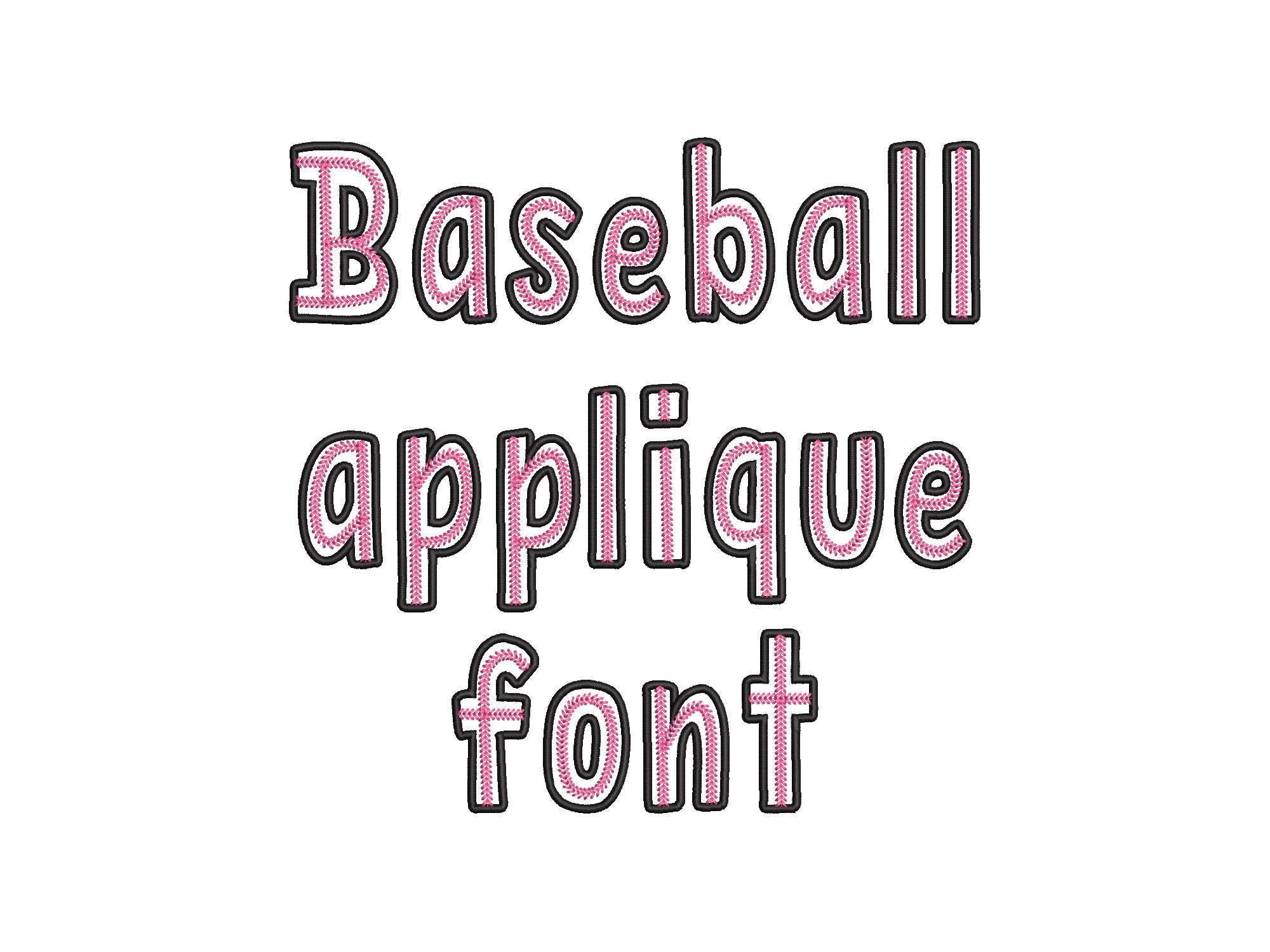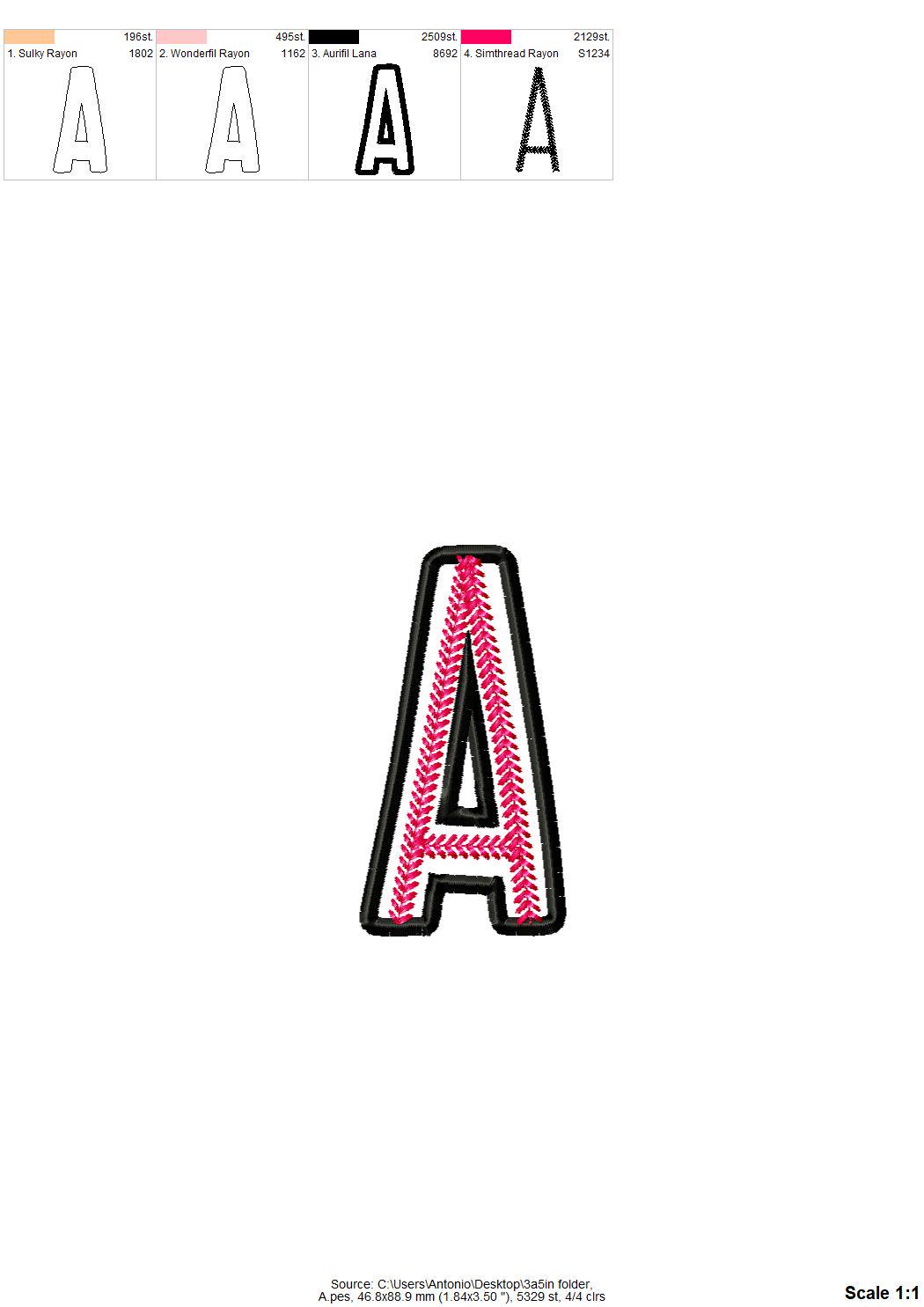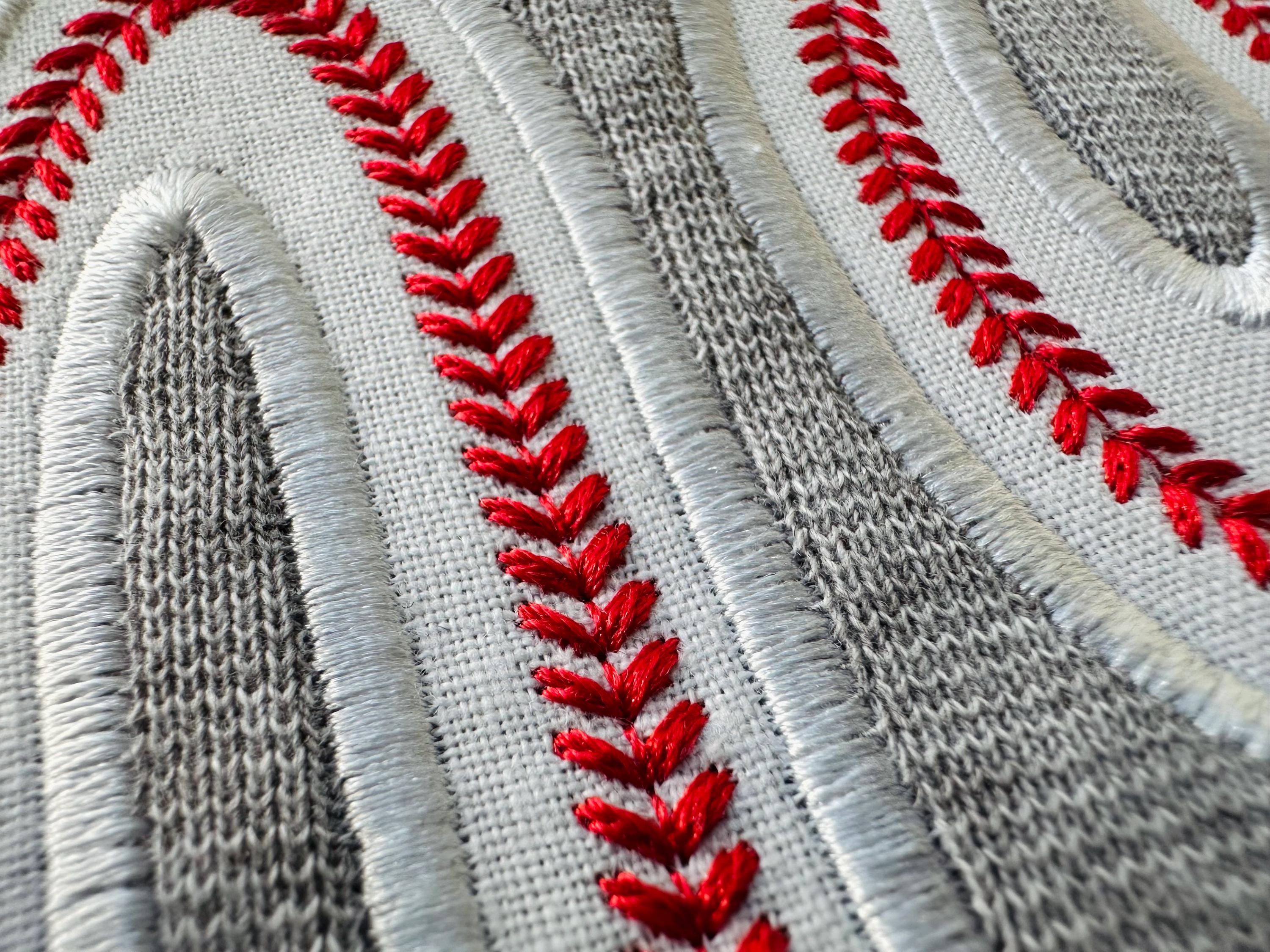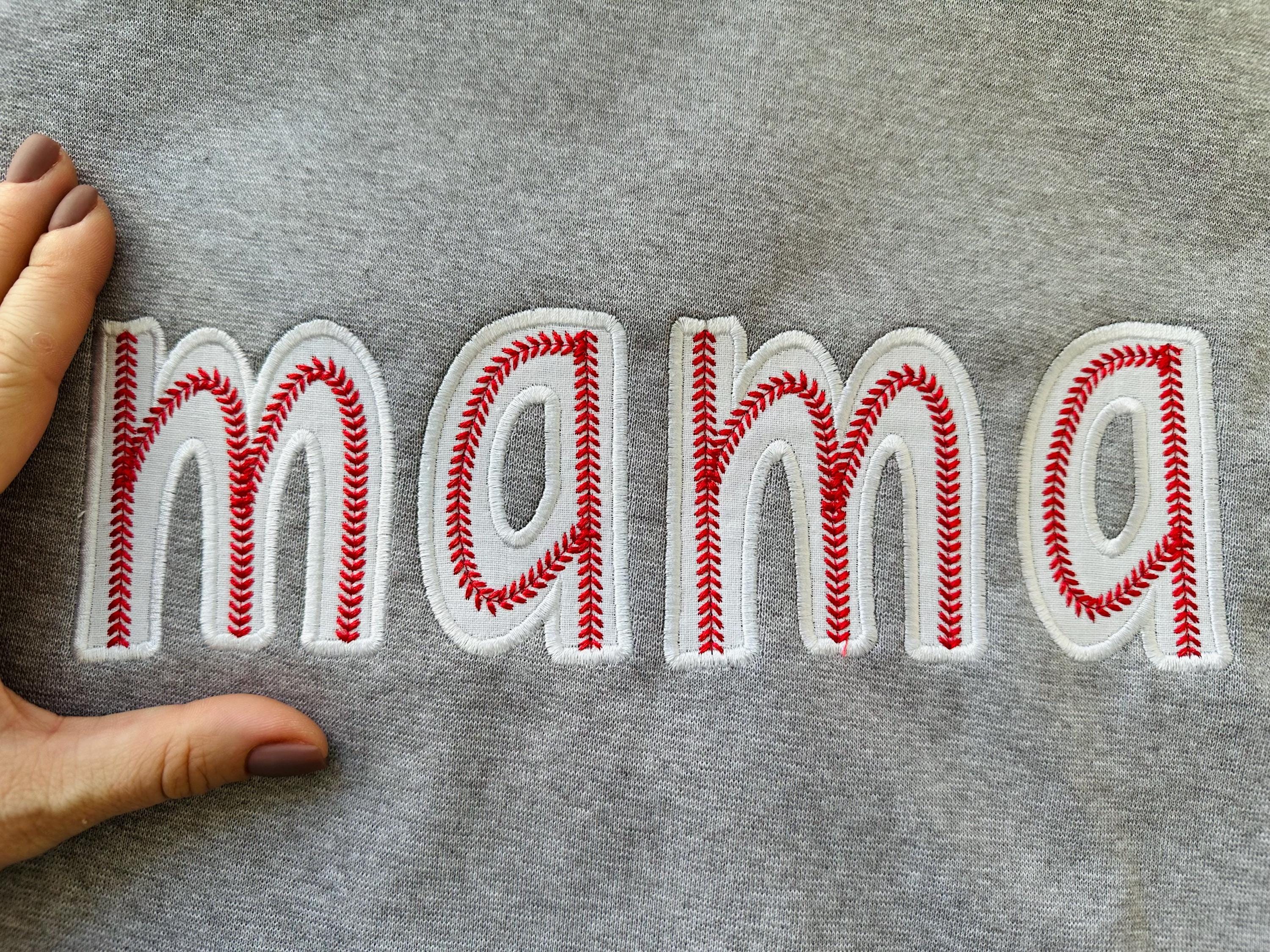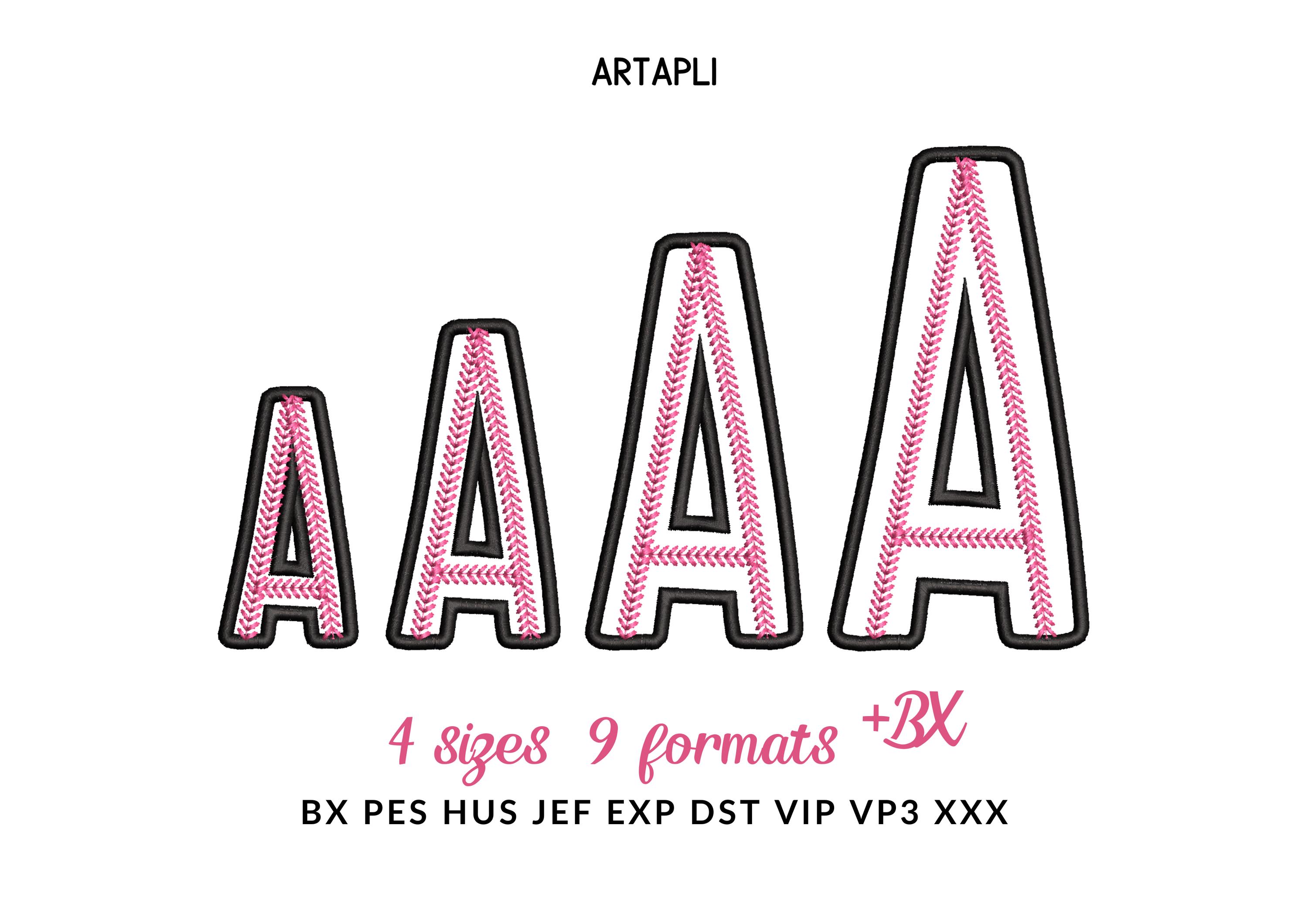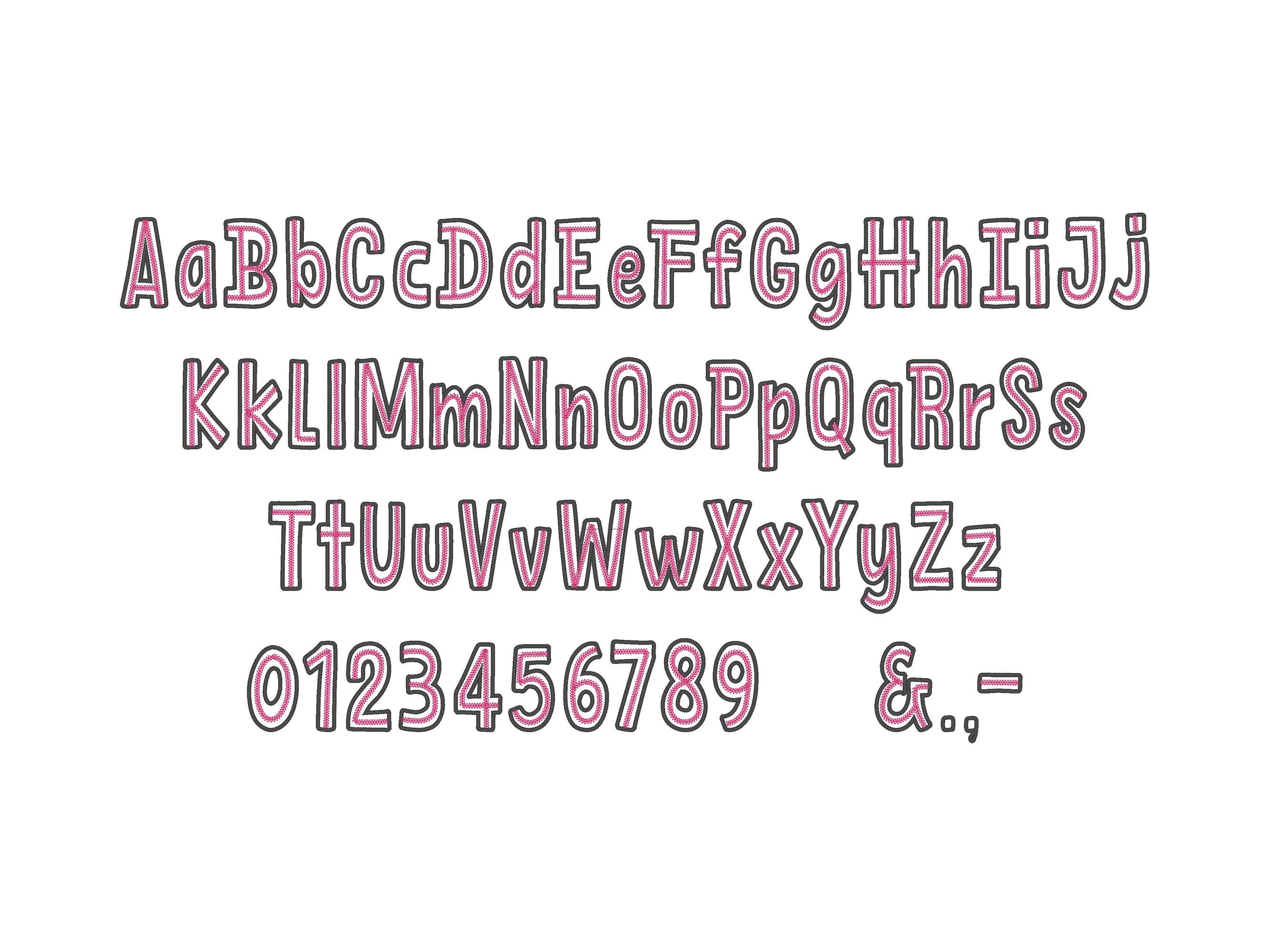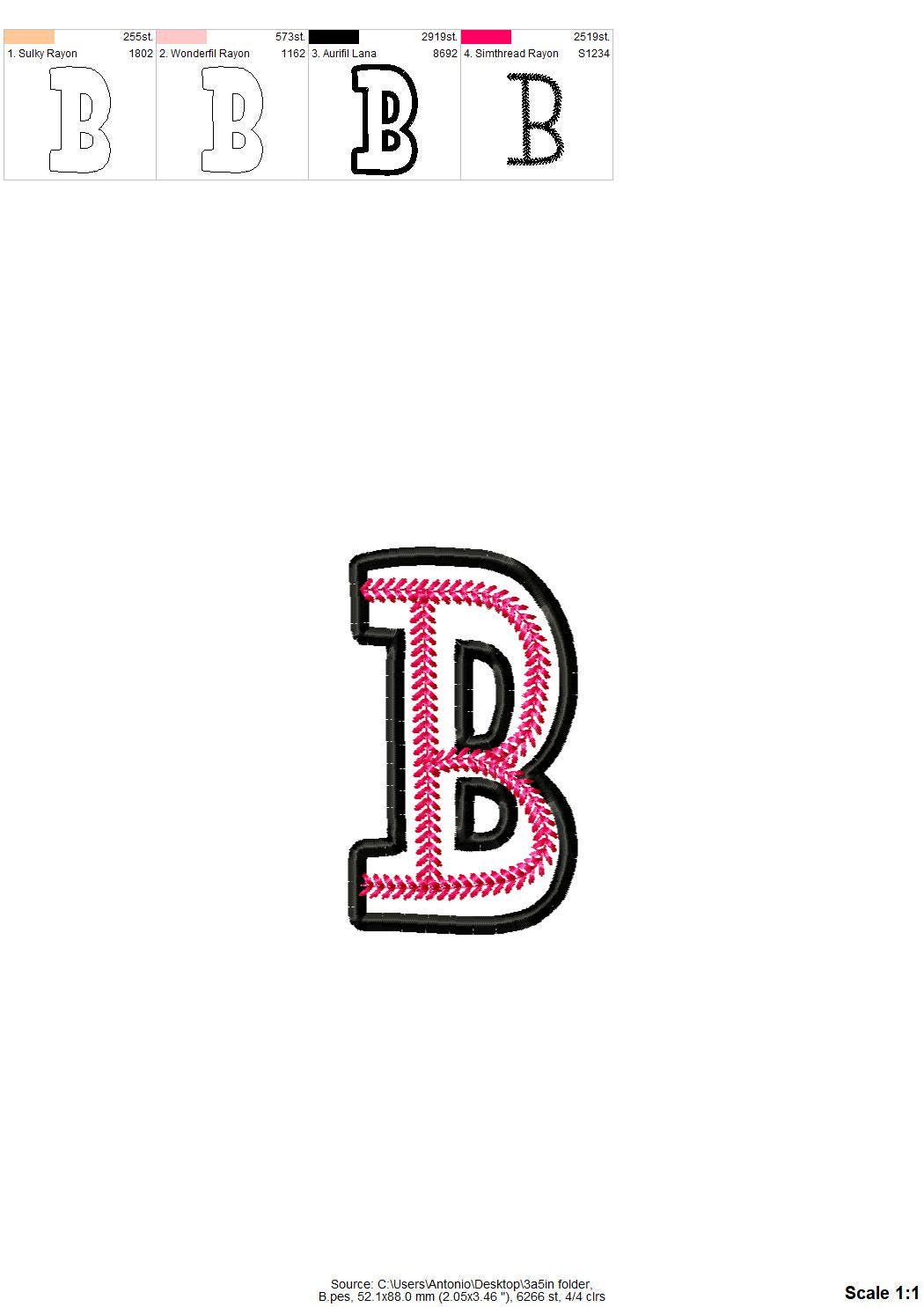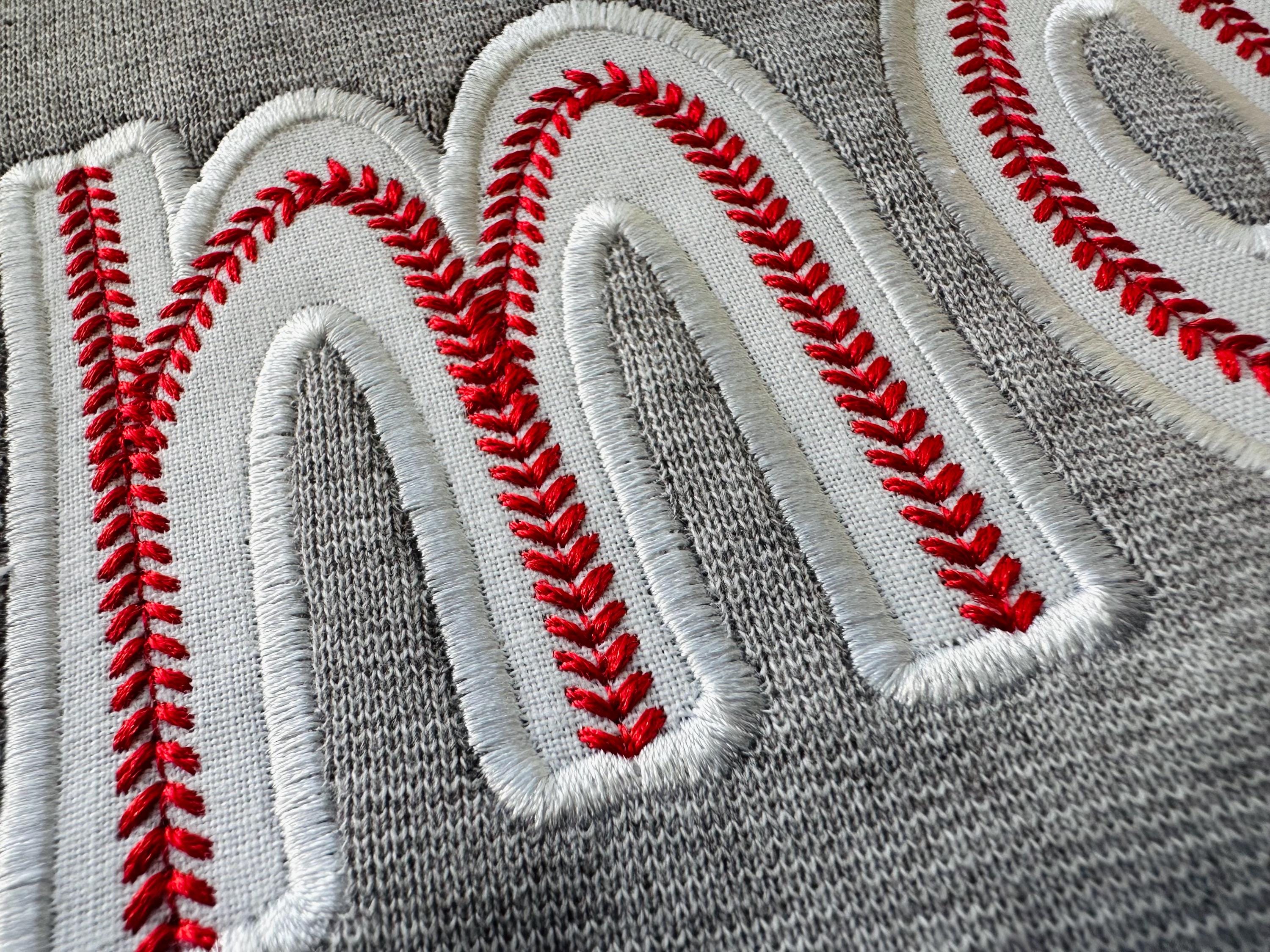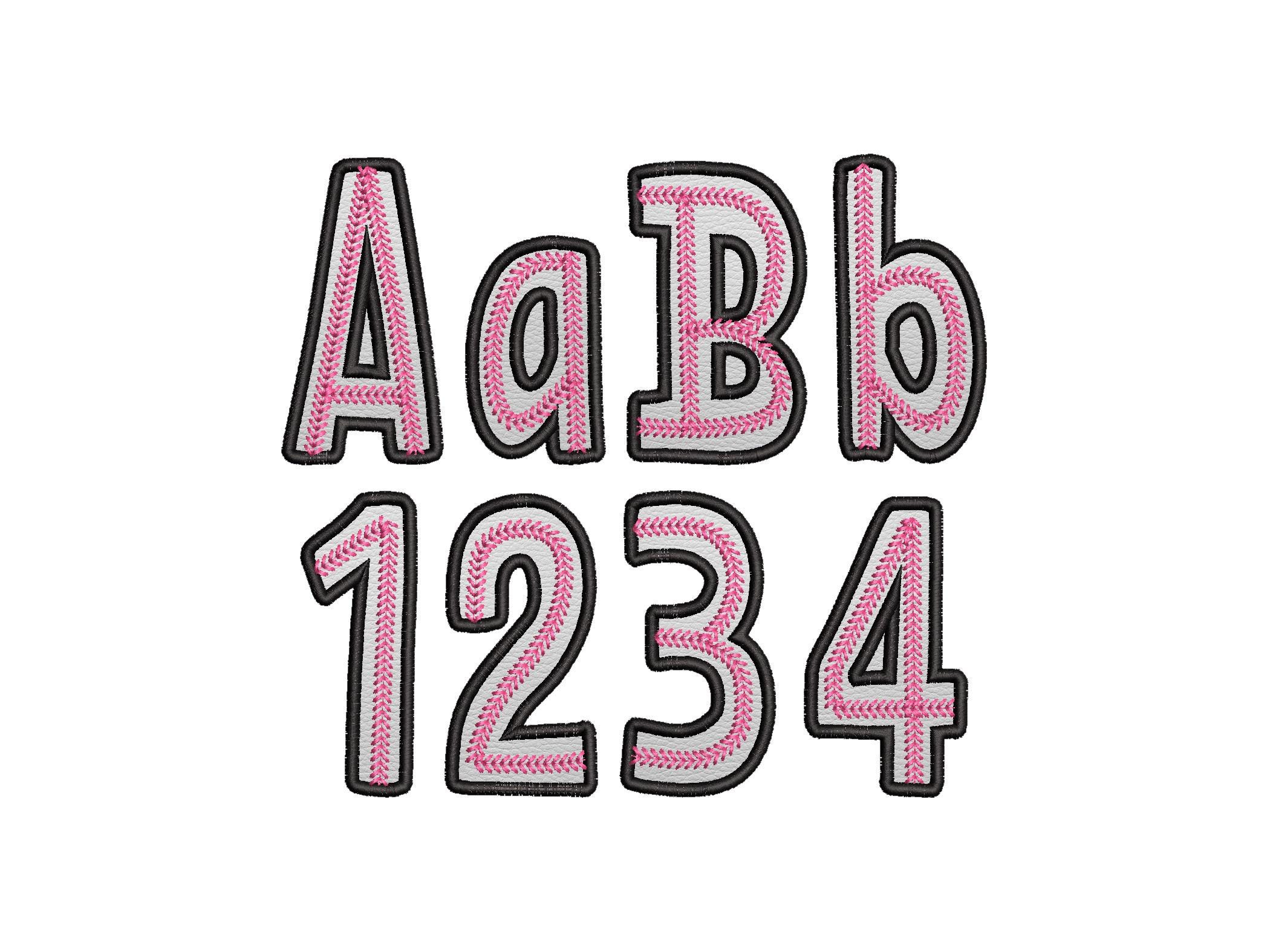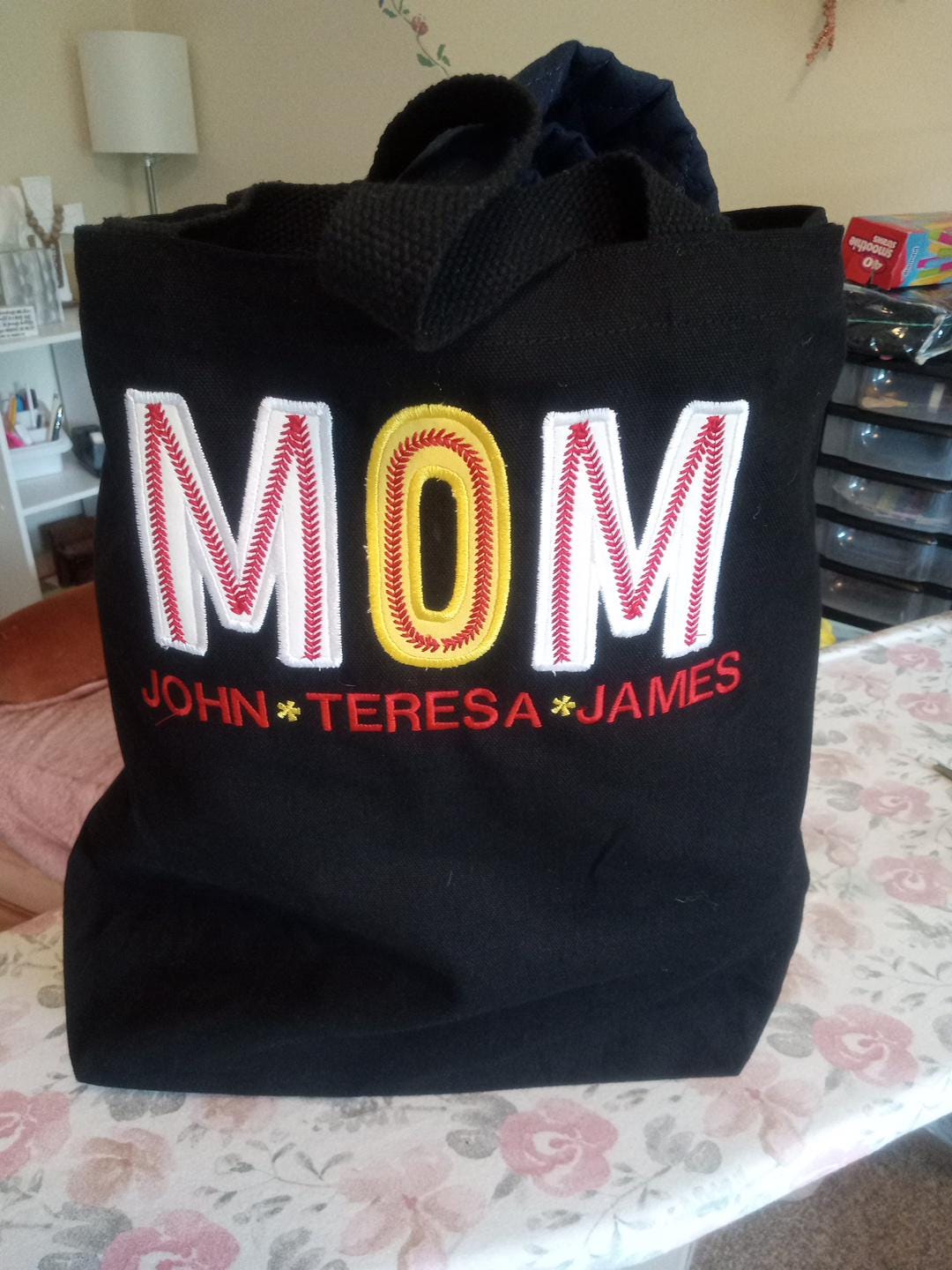
Baseball stitch Applique FONT Sports alphabet monogram softball kids team sport letters machine embroidery designs sizes 2.8 up to 5.3in, BX
Applique font.
Baseball stitch is a part of the embroidery.
Entire alphabet uppercase and lowercase letters, numbers, and punctuation.